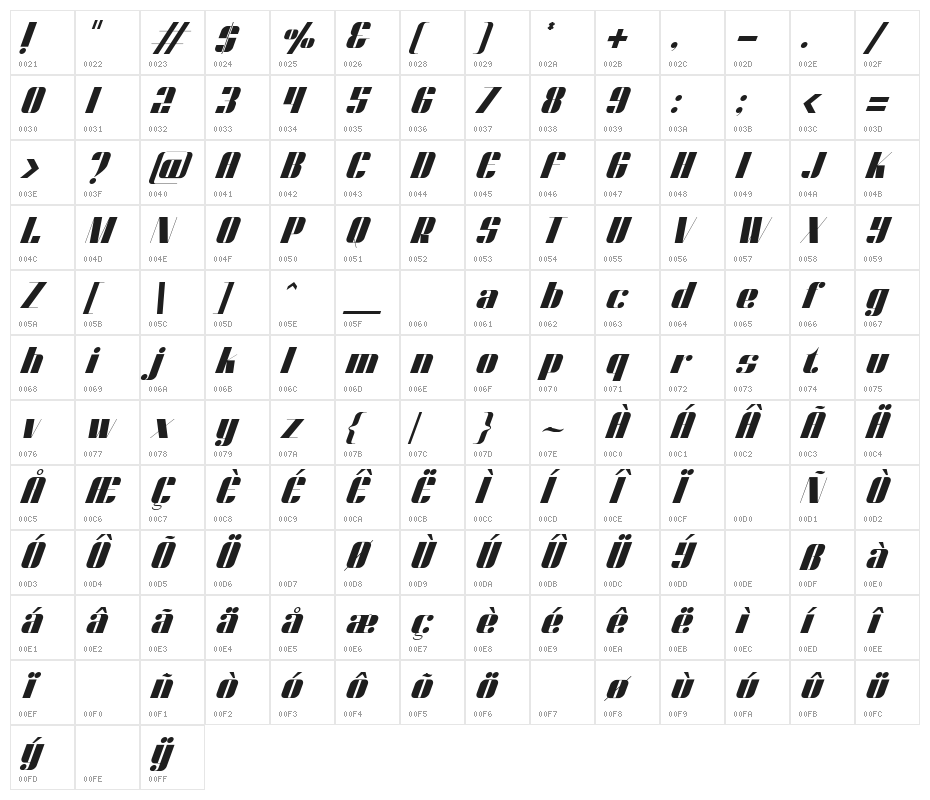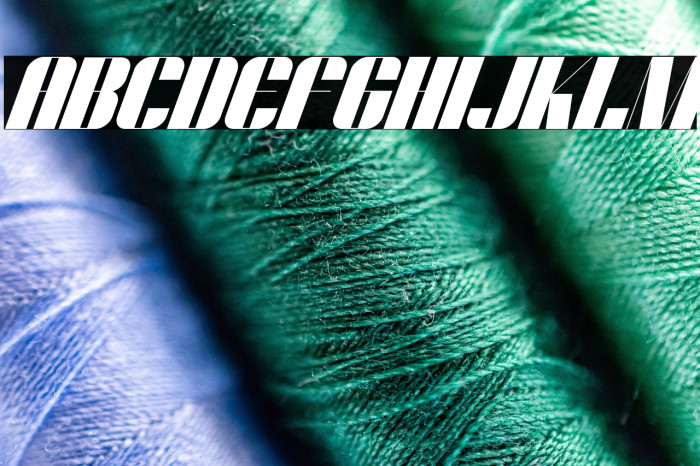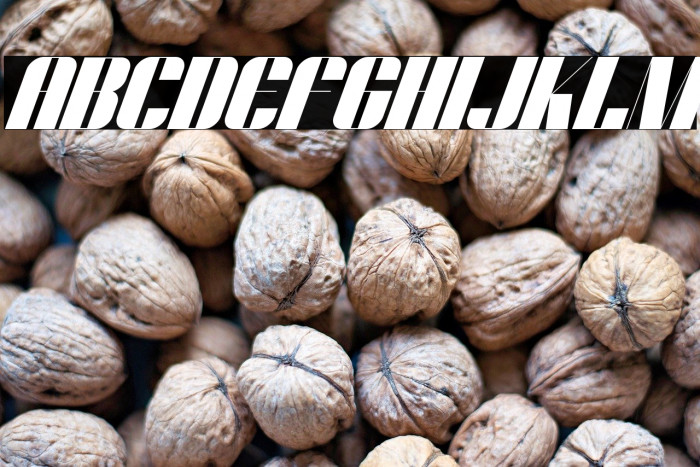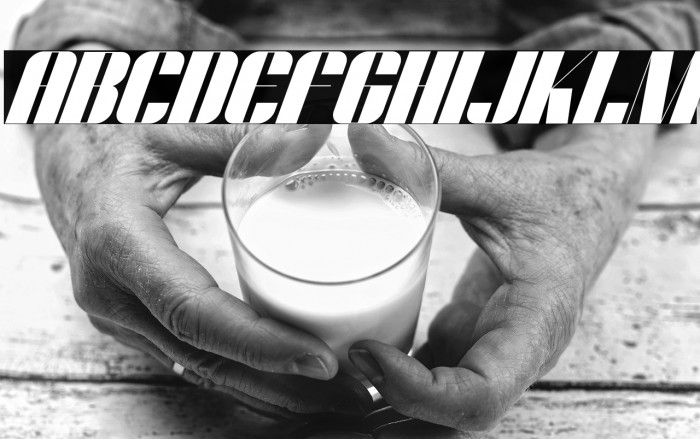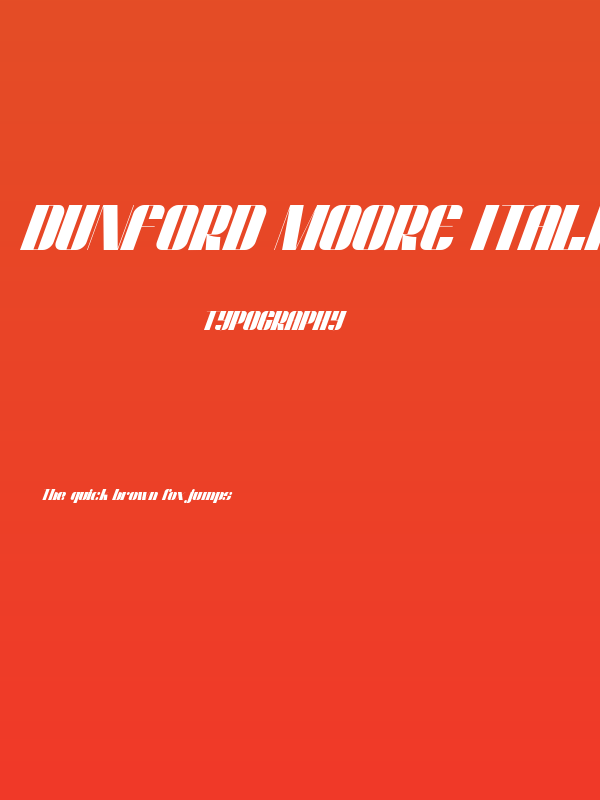
Dunford moore Italic Font
Dunford moore Italic Description
This font exhibits a bold and dynamic style with a strong italic slant, giving it a sense of motion and energy. The characters are wide and have a high stroke contrast, making them stand out prominently. The uppercase and lowercase letters maintain a consistent style, with sharp edges and a modern flair. The numbers and special characters follow the same bold and italicized design, ensuring uniformity across all glyphs. This font is ideal for projects that require a striking and contemporary look.
| Use Case | Headlines, Logos, Advertising |
| Proposed Projects | Ideal for branding, advertising, headlines, and any design that requires a bold statement. |